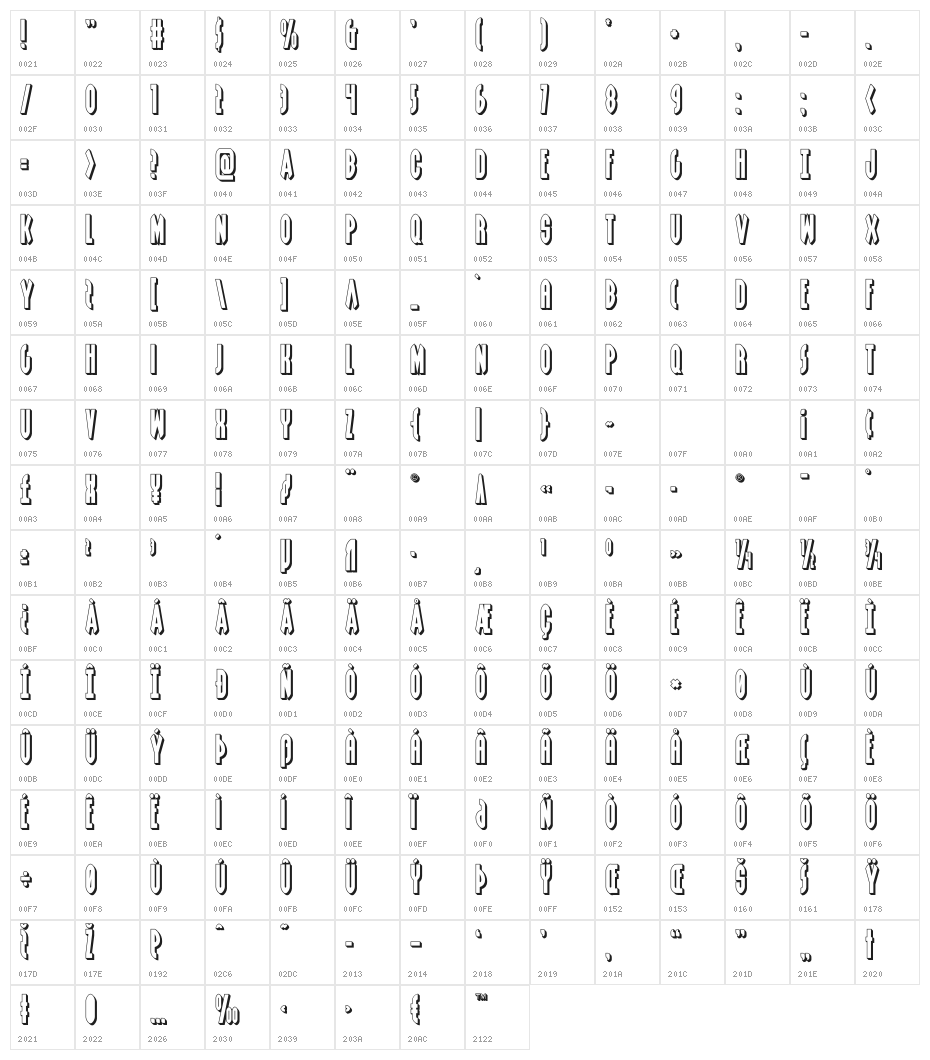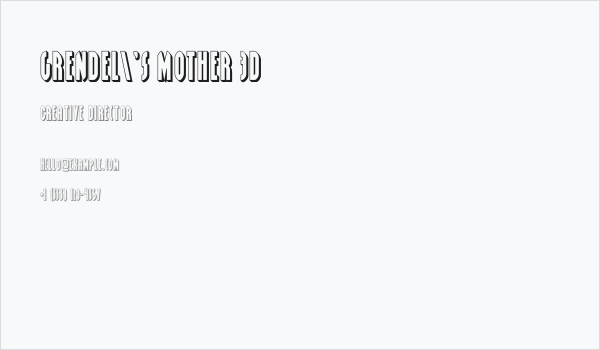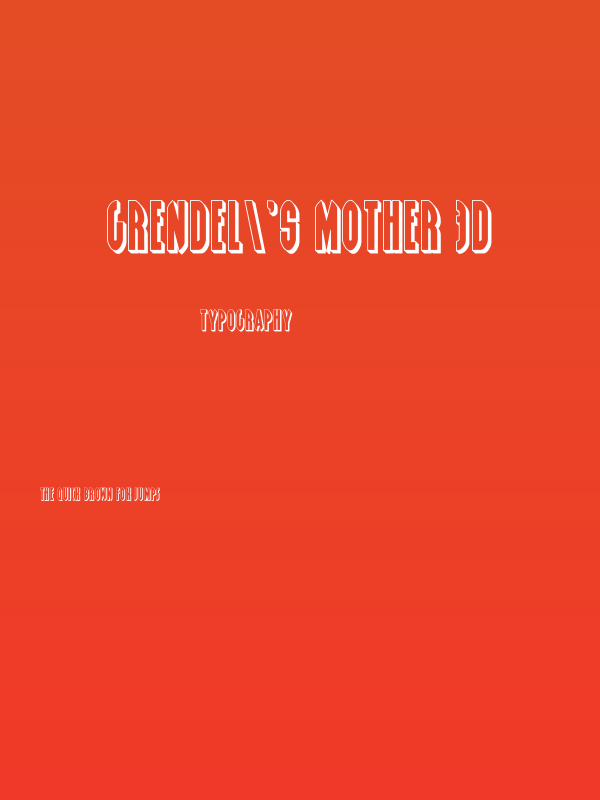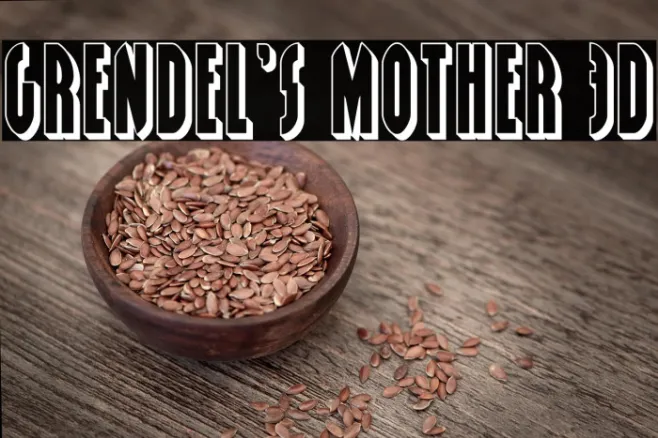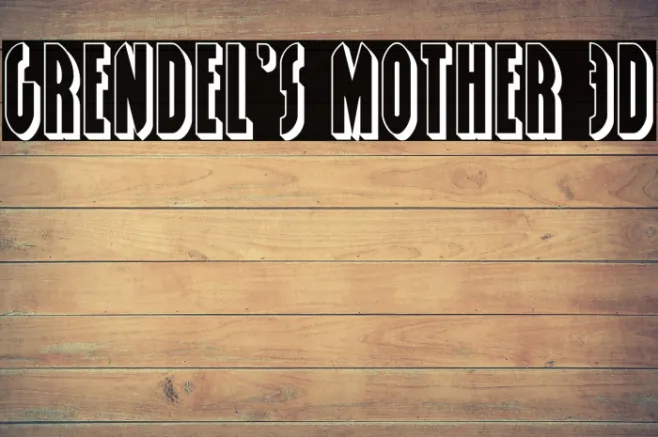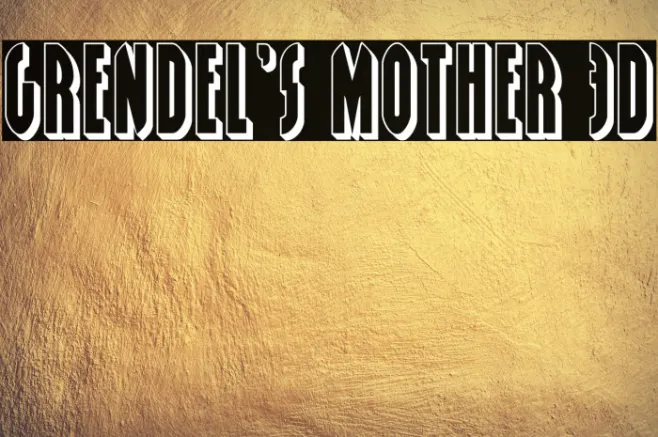
Grendel's Mother 3D Font
Grendel's Mother 3D Description
This font features a bold, three-dimensional design with a strong, impactful presence. The letters are uppercase and have a shadow effect that gives them a sense of depth and dimension. The characters are tightly spaced, enhancing the boldness and making them stand out. The style is distinctly decorative, making it ideal for attention-grabbing headlines or titles. The numbers and special characters follow the same bold and dimensional style, ensuring consistency across all text elements.
| Proposed Projects | Ideal for posters, logos, and headlines where a striking, attention-grabbing font is needed. |